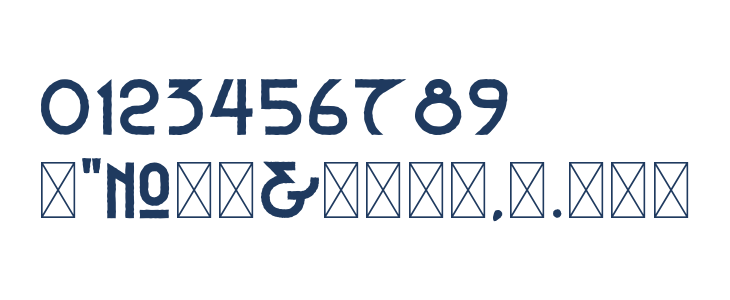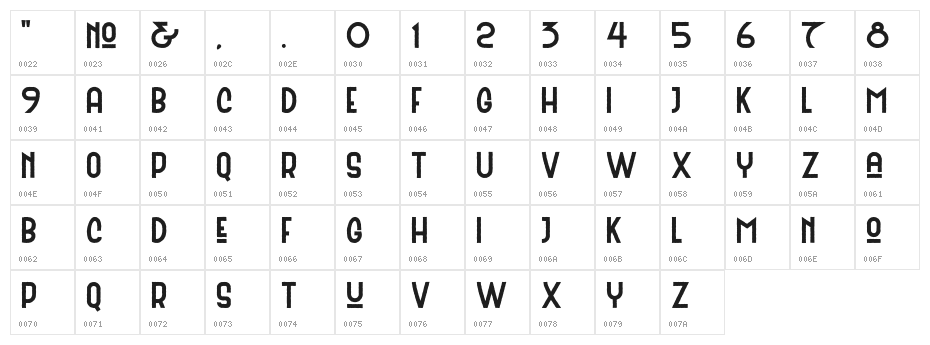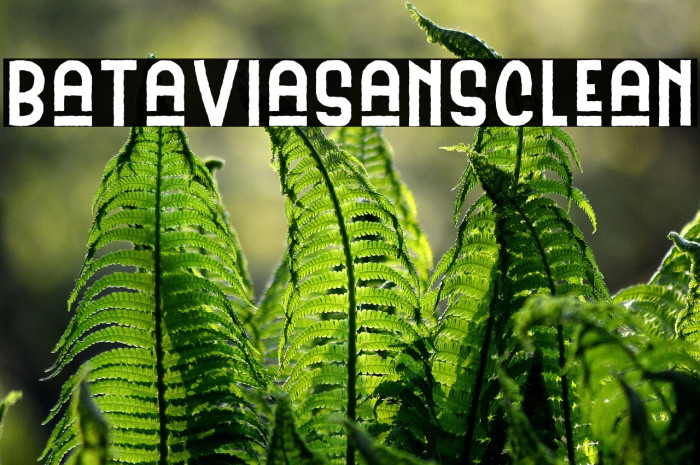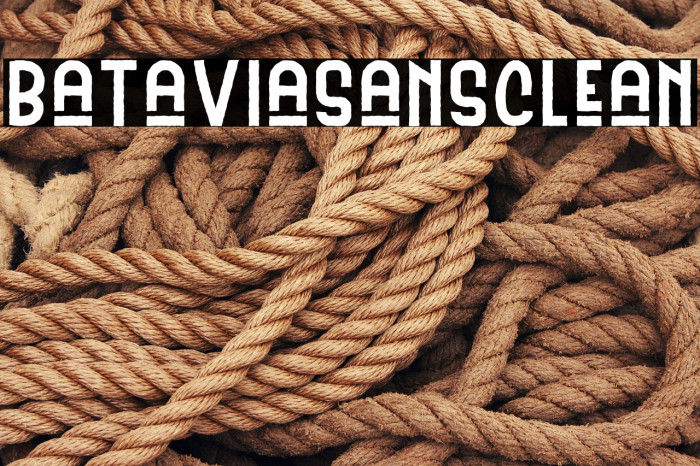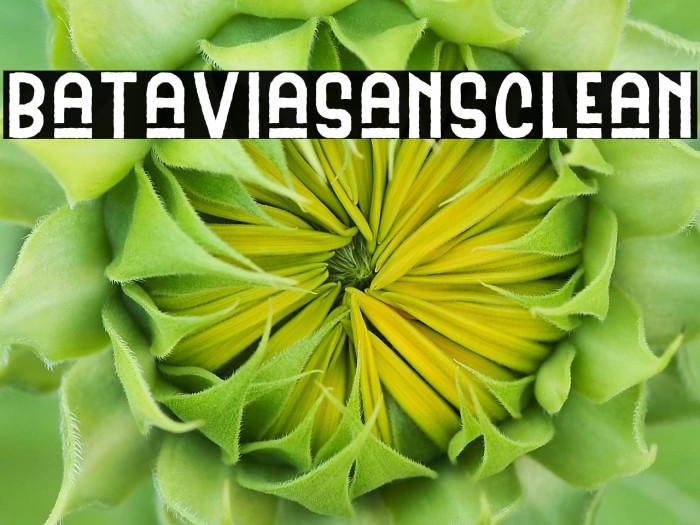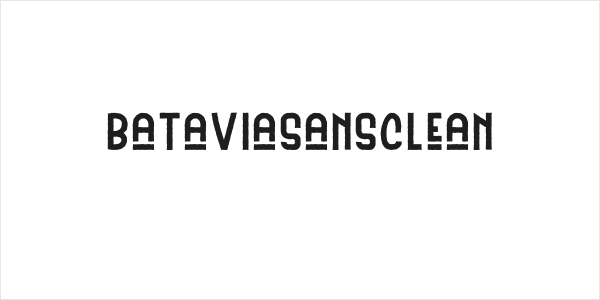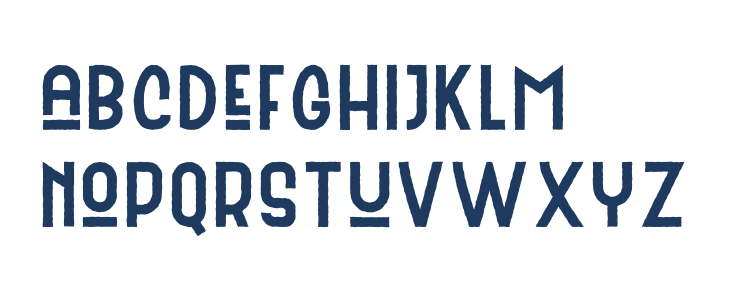
BataviaSansClean Font
BataviaSansClean Description
This font exhibits a bold, geometric style with a strong presence. The characters are constructed with thick, uniform strokes, giving them a robust and solid appearance. The uppercase letters are particularly striking, with angular forms and a slightly condensed width that enhances their impact. The lowercase letters maintain the same boldness, ensuring consistency across the typeface. Numbers are equally bold and geometric, fitting seamlessly with the overall design. Special characters are designed with the same attention to detail, ensuring they complement the alphabetic characters. This font is ideal for making a statement, with its high contrast and distinctive style.